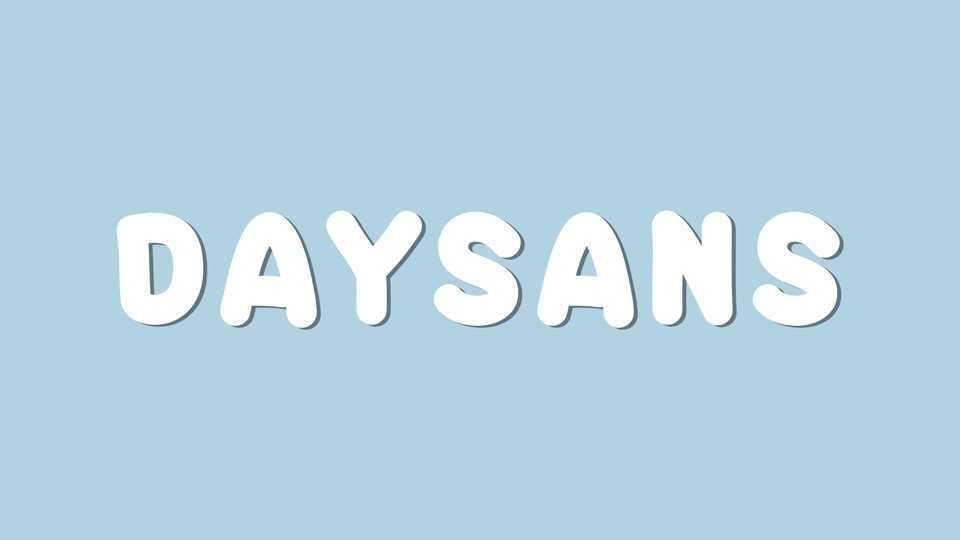
Feb 2, 2025Script & HandwrittenDaysans Font Daysans is a friendly and warm handwritten font, perfect for comics, cartoons, creative ideas and more The font will bring an impression to any project with its simple yet powerful style. Font DetailsDesigned by: MJ TypeWebsiteLicense: Free for commercial use Download Daysans FontFile size: 30.10 KBCreated: February 16, 2025Updated: February 16, 2025 Download Explore similar fonts Bakula Font Brew Today Font Duo Thedrip Font Playpen Font Chastel Reid Font Blasting Font # Cartoon# Casual# Hand-drawn# Handwriting More fonts by MJ TypeGin Fight FontBadast FontSpicy Hut FontNew York FontBlinked FontKiwi Fruit FontSupfun FontHolland Land Font